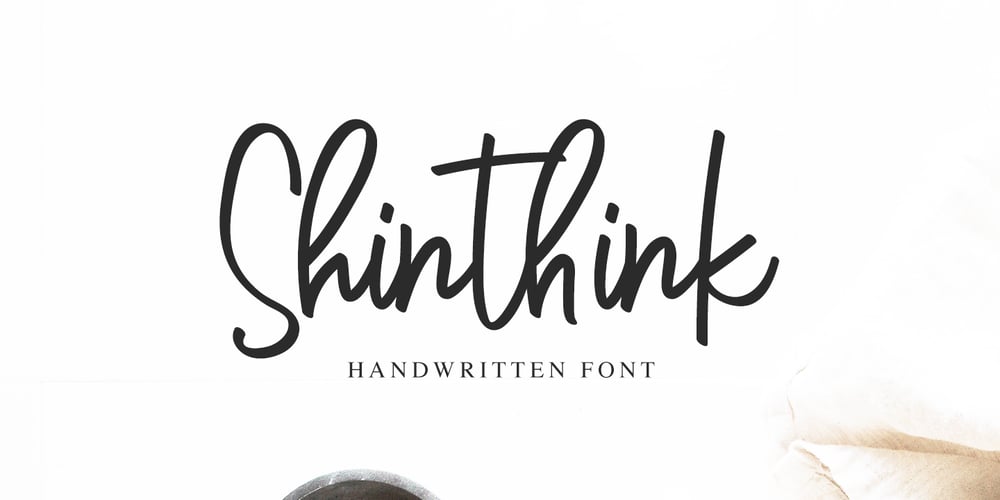
Shinthink Font Family was designed by Agung Rohmat and published by alphArt. Shinthink contains 1 styles and family package options. Shinthink is a handwritten script font with a simple and natural style and is great for your next creative projects such as watermark on photography, quotes, album cover, logo, business card, and many other design project. Shinthink comes with uppercase letters, lowercase alternative letters, numbers, punctuation, ligature and multi-lingual support. To use alternative end text is just block end letters and select alternative letters on glyphs option. It may be used in almost any program by using your Operating System’s utilities (CharacterMap for Windows and Font Book for Mac.), as well as Illustrator, Photoshop CC 2017 and several other applications. We hope you enjoy this font. If you have any questions please don’t hesitate to drop me a message 🙂 Thank you, Best regards alphArt